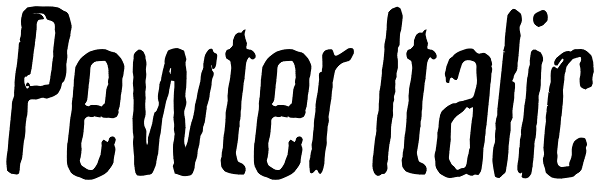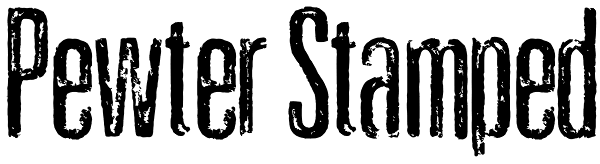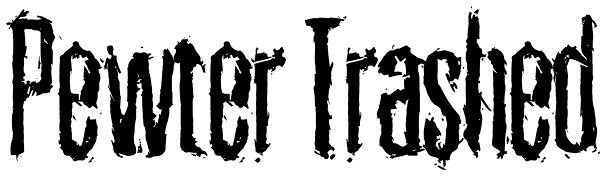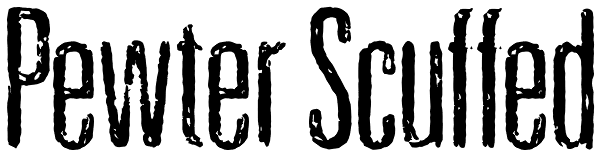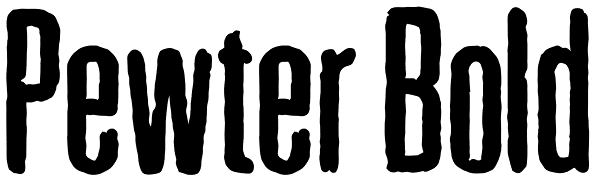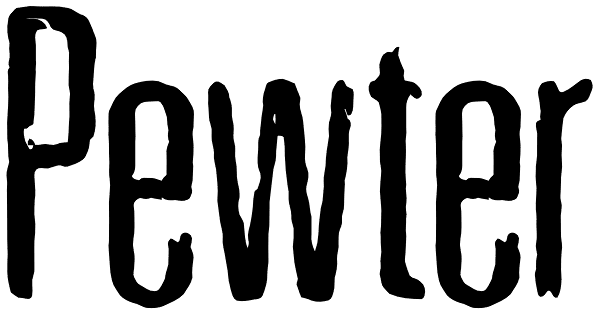
Pewter
KC Fonts would like to present its latest creation: Pewter. Pewter is a three weight font (including italics) with four grungy family members (also with italics) for a total of 14 OpenType/TrueType fonts. The Pewter family allows you to freely mix...